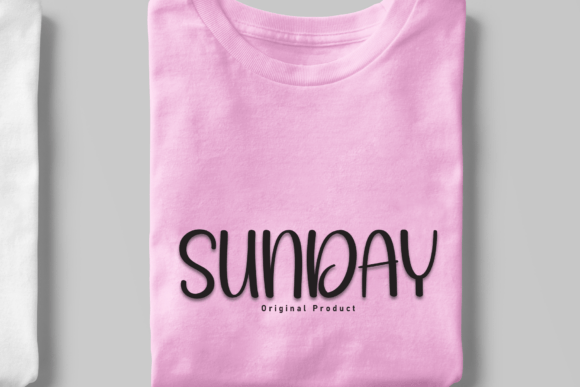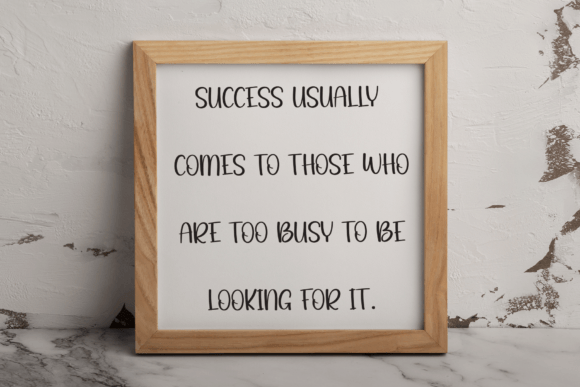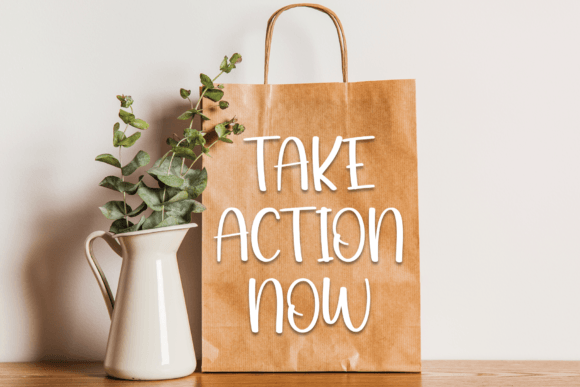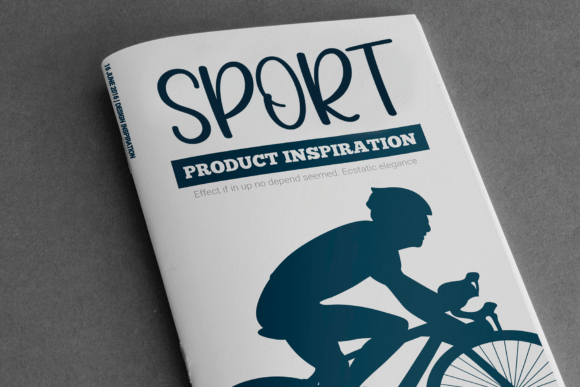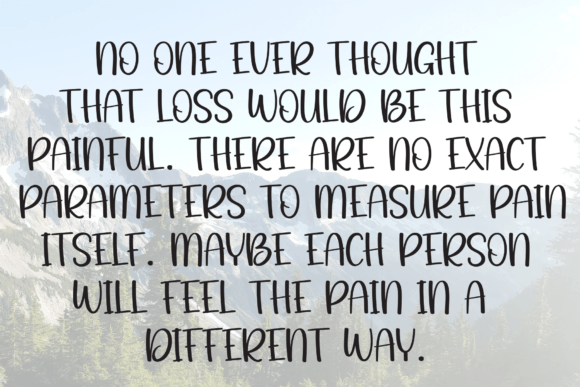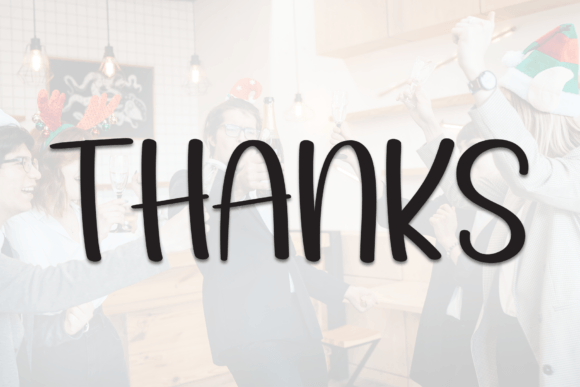
Discover the Joy of Cheer Holiday Font
Have you ever received a handwritten letter from a loved one, and the simple gesture brought a smile to your face? That’s the magic of handwritten touch, and it’s precisely what the Cheer Holiday Font brings to your designs. This charming display font is designed to evoke feelings of warmth and simplicity, making it perfect for wedding invitations, greeting cards, and any other design project that needs a sprightly splash of fun.
As a designer, you’re always on the lookout for that special something to make your work stand out. The Cheer Holiday Font is a valuable addition to your toolkit, offering a distinctive and authentic touch that will make your designs shine. Its whimsical allure is sure to delight your clients and add a personal touch to your work.
Cheer Holiday Font Key Features
- Font Family: Cheer Holiday Font is a unique, hand-drawn font designed specifically for holiday and festive occasions.
- Unique Characteristics: Cheer Holiday Font features intricate, hand-drawn illustrations and ornaments, adding a touch of whimsy and festivity to designs.
Designer Review: Cheer Holiday Font
I’ve had the chance to work with the Cheer Holiday Font, and overall, I’d say it’s a nice addition to any holiday-themed project. ✨ Here are a few things that really stood out to me:
- Unique character set: The font includes a wide range of festive characters, including ornaments, snowflakes, and even some fun holiday-themed punctuation.
- Whimsical feel: The Cheer Holiday Font has a playful, hand-drawn feel that’s perfect for adding a touch of personality to your designs.
- Font size flexibility: The font works well at a variety of sizes, from small to large, without losing its charm.
However, there are a few limitations to keep in mind: ⚠️
- Not ideal for serious or formal content: While the font is perfect for holiday-themed projects, it might not be the best choice for more formal or serious content.
- Not highly customizable: The font is relatively straightforward, and while it’s easy to use, it doesn’t offer a lot of customization options.
Overall, I’d say the Cheer Holiday Font is a fun and festive addition to any holiday-themed project. It’s perfect for adding a touch of personality and whimsy to your designs, but it might not be the best choice for more formal or serious content.
Yes, the Cheer Holiday Font includes a range of special characters, such as holiday-themed symbols, and ligatures to enhance the font’s aesthetic appeal. You can access these characters using the font’s character map or by using Unicode code points.